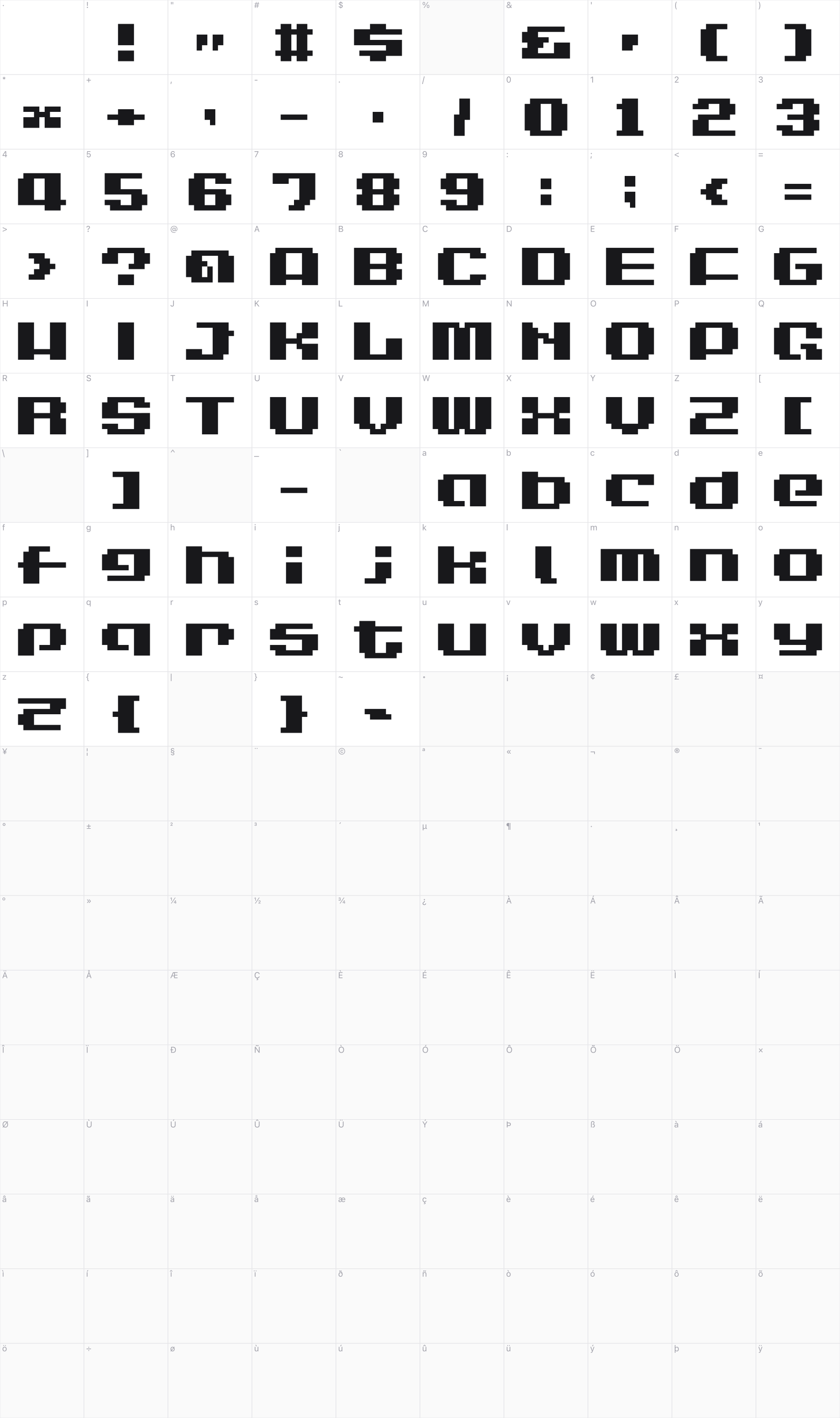
LVDC Game Over
LVDC Game Over is a blocky, bold pixel font from Lovedesign Co. that channels the chunky letterforms of 8-bit era game screens. The characters are heavy and unapologetically digital, built for headlines, game UI, and retro-themed projects where you want that unmistakable low-resolution crunch. Best at larger sizes where the pixel grid reads as intentional rather than just rough.